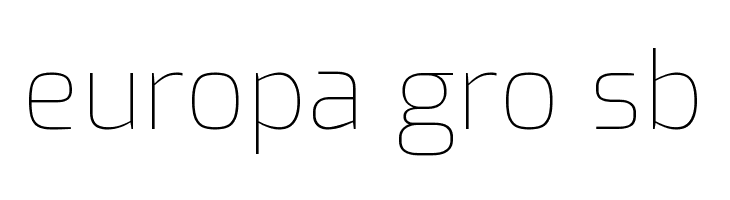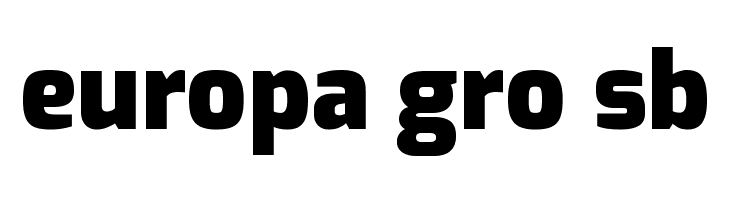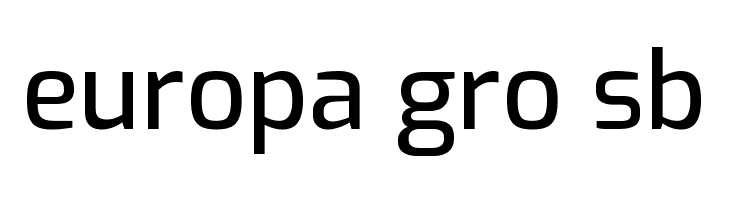
A futuristic, shadowed font with a bold, geometric design.
A modern, geometric font with a sleek and minimalistic design.
A futuristic, shadowed italic font with dynamic and modern appeal.
A sleek, futuristic italic font with clean lines and a dynamic style.
A bold, futuristic font with geometric and uniform letterforms.
A sleek, futuristic font with geometric structure and rounded edges.
A sleek, futuristic light italic font with a modern geometric design.